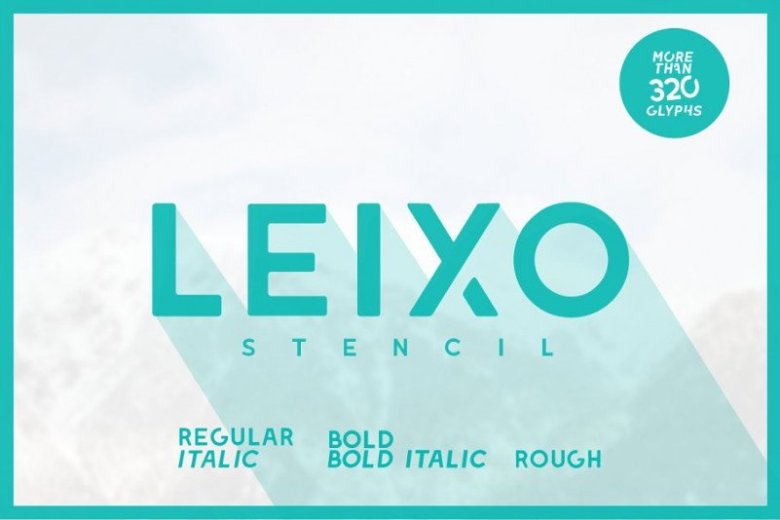
Leixo Stencil Typeface
Say hello to the Leixo Font! This font was inspired by old style classic typefaces and got a modern feel by getting rid of unnecessary details. It is designed and shared by phitradesign fonts. Leixo is a fancy stencil with a lot of features to use. You can use lower and upper case to create a mixture of a stencil touched multifunctional headline. To use the ligature, just type “theliga” and you will get a unique designed pre-set eyecatcher. And there are even more ligatures!